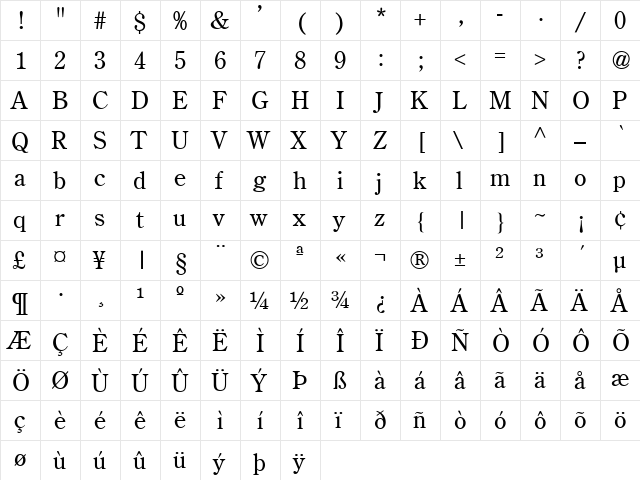
CenturionOld Regular
Design Context for CenturionOld Typeface
CenturionOld offers clean, dependable letterforms without strong stylistic allegiance, making it a practical choice for designers who need flexibility.